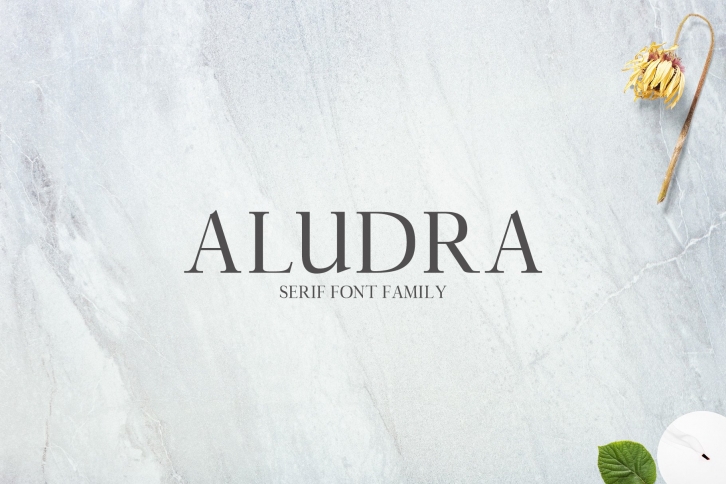
Aludra is a bold and assertive serif font. Masterfully designed to become a true favorite, this font has the potential to bring each of your creative ideas to the highest level!